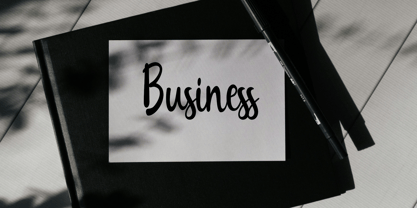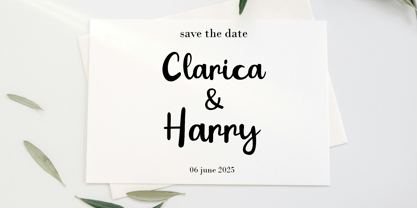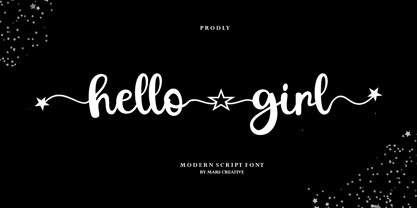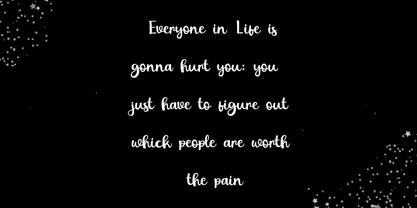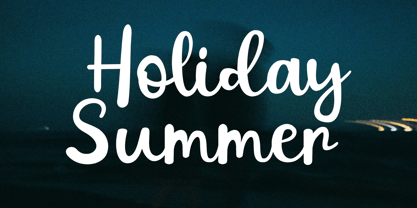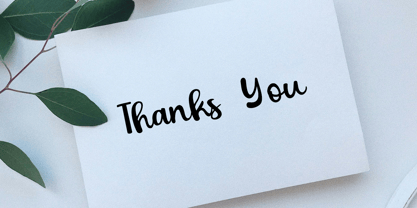
Hello Girl Modern
by Mars Creative
The Hello Girl Modern Font Family was designed by Al Muzammil and published by Mars Creative. Hello Girl Modern contains 1 styles. More about this family
Hello Girl is an elegant script font featuring a beautiful character variation. This font combines a classic style with a modern touch, designed with great attention to detail for an elegant look.
This font is visually appealing, clean, feminine, and easy to read, thanks to its fancy letter connections. The classic style is perfect for a variety of formal purposes, including invitations, labels, restaurant menus, logos, fashion, makeup, stationery, novels, magazines, books, greeting and wedding cards, packaging, and all kinds of advertising.